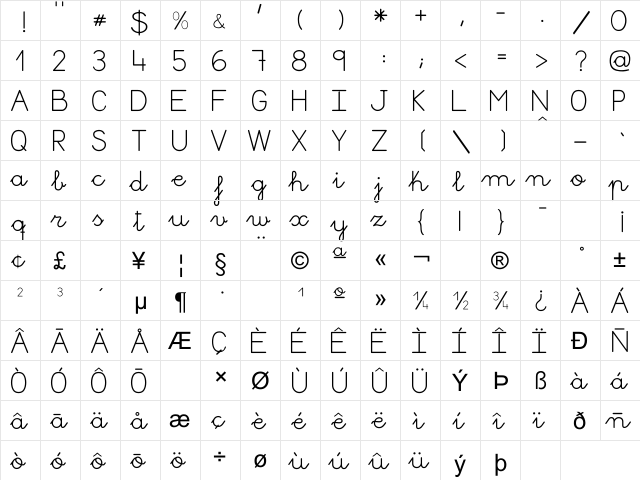
Massallera Regular
| Foundry | High-Logic |
| Designer | High-Logic - Erwin Denissen 1999 |
Design Context for Massallera Typeface
Massallera is a composed and adaptable typeface that performs quietly and consistently across a wide range of design contexts.